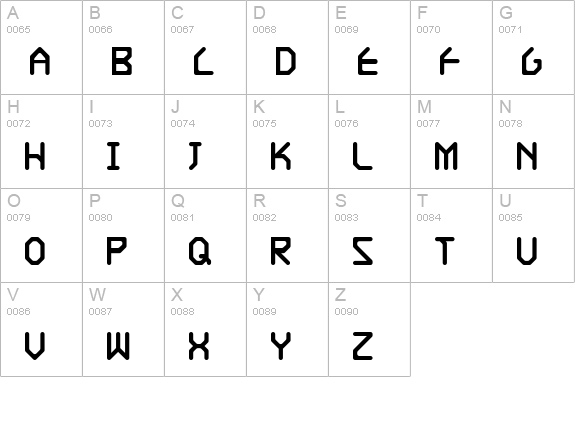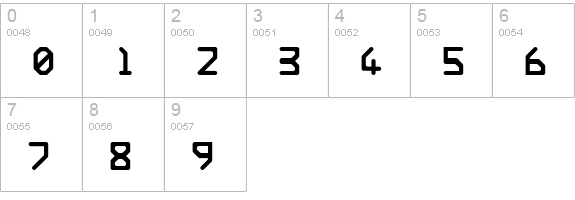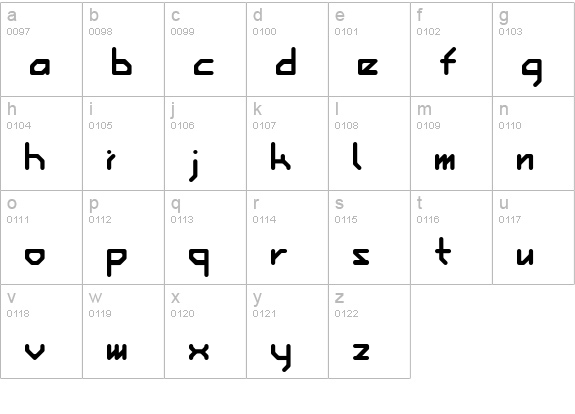
Ishi Regular E. Font Details
Ishi Regular E. is the standard, neutral variant in the Ishi typeface family \xE2\x80\x94 well suited to general body text, paragraphs, and standard typographic work.
Ishi Regular E is a versatile and modern typeface that captures the essence of elegance and simplicity. With its clean lines and balanced proportions, this font is perfect for a wide range of design projects, from branding and logo design to editorial layouts and web design. Designed with legibility in mind, Ishi Regular E offers a harmonious blend of classic and contemporary elements, making it suitable for both print and digital applications. Its timeless appeal makes it an excellent choice for corporate identities, as well as for personal projects that require a touch of sophistication. One of the standout features of Ishi Regular E is its versatility. Whether used as a headline or body text, this font maintains its readability and visual impact across various sizes and mediums. Its carefully crafted letterforms ensure optimal legibility, even at smaller point sizes, making it an excellent choice for any project where clarity is paramount. What sets Ishi Regular E apart is that it is available for free download at FontsMarket.com. This means that designers and creatives can access this high-quality font without any cost, allowing them to enhance their designs without breaking the bank. With its wide range of stylistic alternates and ligatures, Ishi Regular E offers ample creative possibilities while maintaining its overall cohesive feel. In conclusion, Ishi Regular E is a beautifully designed font that combines elegance with versatility. Its timeless appeal and impeccable legibility make it a valuable asset for any designer or creative professional. And with the added bonus of being freely available to download at FontsMarket.com, there's no reason not to add this font to your collection today.